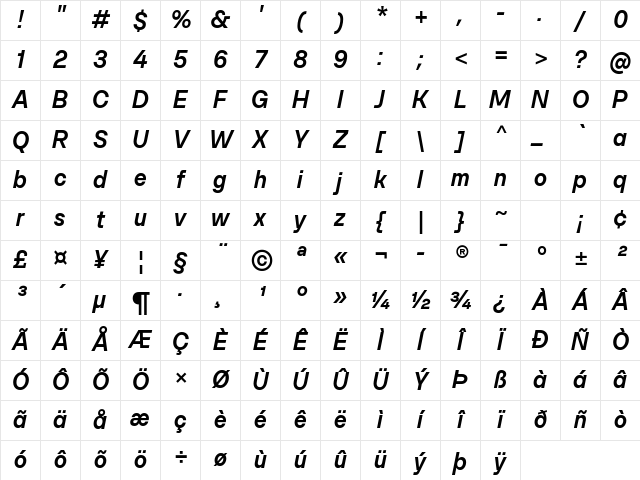
SFT Schrifted Sans TRIAL DemiBold It Comp Free Font
SFT Schrifted Sans TRIAL DemiBold It Comp
Style: DemiBold It Comp
Foundry: Schrifteria Foundry
Designer: Yulia Gonina
Design Context for SFT Schrifted Sans TRIAL
SFT Schrifted Sans TRIAL is a composed and adaptable typeface that performs quietly and consistently across a wide range of design contexts. Its bold stroke weight gives it real presence on the page.